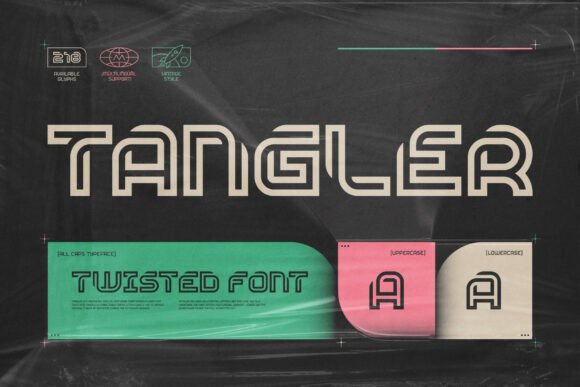
Tangler Font: Elevate Your Designs with a Geometric Twist
In the realm of typography, fonts play a pivotal role in shaping the visual identity of a design. Among the myriad of fonts available, Tangler stands out as a unique geometric display font that has garnered attention for its distinctive style. Composed of straight lines that elegantly twist into carefully structured forms, Tangler brings a refreshing aesthetic to modern designs. With a subtle nod to vintage signage, this font adds an authentic character that can elevate any project.
What is Tangler Font?
Tangler is a thoughtfully crafted geometric display font that merges simplicity with sophistication. Its design is rooted in the use of straight lines, which are meticulously arranged to form letters and shapes that exude a sense of modernity and elegance. The font’s geometric nature makes it versatile, suitable for a wide range of applications, from branding and advertising to digital media and print.
The defining feature of Tangler is its ability to blend geometric precision with a subtle vintage charm. This duality makes it an excellent choice for designers looking to add a touch of nostalgia to contemporary designs without compromising on modern appeal.
Key Characteristics of Tangler Font
- Geometric Structure: The font is built on a geometric foundation, characterized by straight lines and precise angles. This structure lends a clean and modern look to the text.
- Twisted Forms: The straight lines in Tangler are cleverly twisted to create unique and memorable letterforms. This twisting gives the font its distinctive character and makes it stand out.
- Vintage Inspiration: While Tangler is undeniably modern, it draws inspiration from vintage signage. This is evident in its proportions, line work, and the overall aesthetic, which evoke a sense of nostalgia.
- Authentic Character: The combination of geometric precision and vintage inspiration imbues Tangler with an authentic character. This makes it an excellent choice for designs that require a touch of personality and charm.
Versatile Applications of Tangler Font
Tangler’s unique blend of modern geometry and vintage charm makes it suitable for a variety of design applications. Here are some of the key areas where Tangler can make a significant impact:
- Branding and Logo Design: Tangler’s distinctive style makes it an excellent choice for branding and logo design. Its unique letterforms can help create memorable and impactful logos that stand out.
- Advertising and Marketing Materials: Whether it’s billboards, flyers, or digital ads, Tangler can add a touch of sophistication and charm to advertising and marketing materials.
- Digital Media: In the digital realm, Tangler can be used in website headers, social media graphics, and digital publications to add a modern yet nostalgic feel.
- Print Design: For print materials such as posters, brochures, and business cards, Tangler offers a fresh and stylish alternative to more traditional fonts.
Tips for Effectively Using Tangler Font
To maximize the impact of Tangler in your designs, consider the following tips:
- Pair with Complementary Fonts: Tangler works well when paired with simpler, sans-serif fonts. This contrast can help create visual hierarchy and balance in your designs.
- Experiment with Colors: Tangler’s geometric structure and vintage inspiration make it versatile in terms of color schemes. Experiment with different colors to find the perfect match for your design.
- Use for Headings and Titles: Due to its distinctive style, Tangler is best used for headings and titles. It can add a touch of personality and flair to your text, making it more engaging.
- Consider the Context: While Tangler has a broad range of applications, it’s essential to consider the context and purpose of your design. Ensure that the font aligns with the overall aesthetic and message you wish to convey.
Tangler font represents a harmonious blend of geometric precision and vintage charm. Its unique design makes it an excellent choice for designers looking to add a touch of authenticity and character to modern designs. Whether you’re working on branding, advertising, digital media, or print design, Tangler offers a fresh and stylish solution. By understanding its characteristics and experimenting with its applications, you can unlock the full potential of Tangler and elevate your designs to new heights.